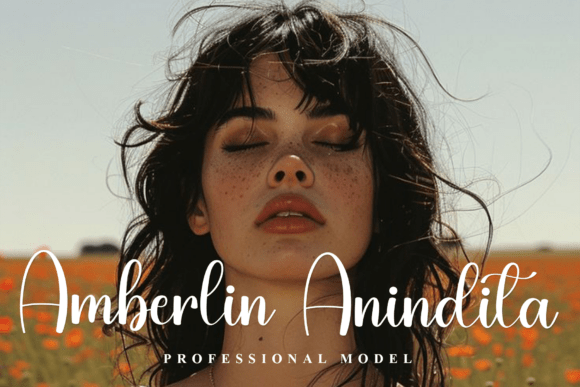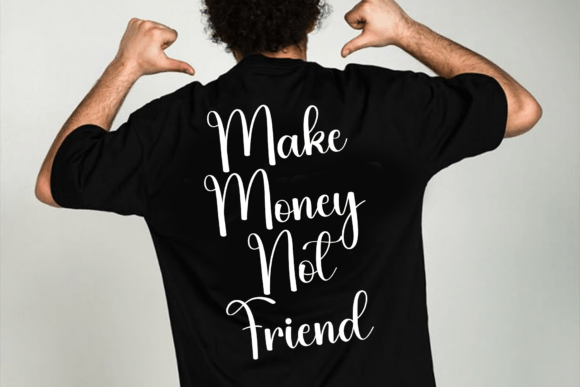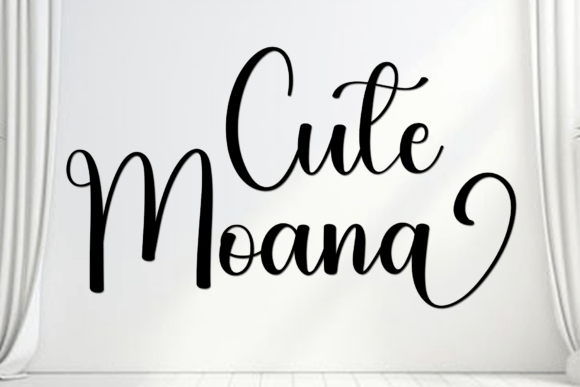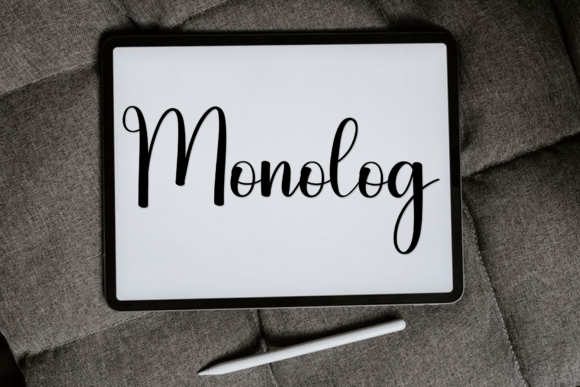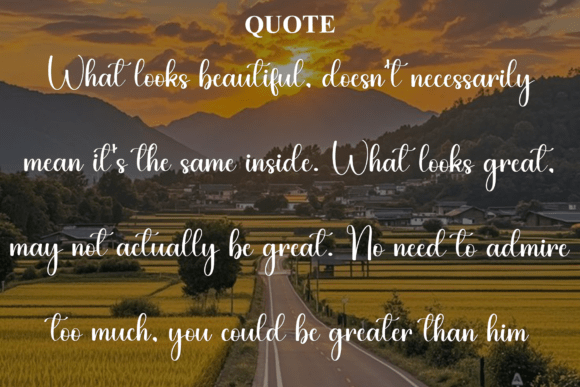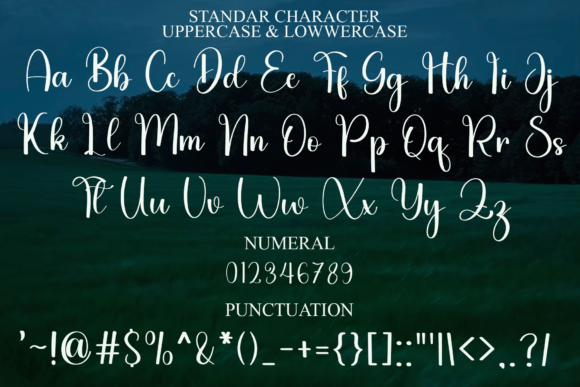
Bangela Font: The Ultimate Festive Typeface for Your Holiday Designs
As the holiday season approaches, designers and crafters are on the lookout for the perfect typography to add a touch of magic to their creations. Look no further than Bangela Font, a festive and merry typeface that captures the spirit of the holiday season. With its decorative elements and whimsical flair, Bangela Font is the perfect addition to your holiday-themed projects.
The Perfect Font for Holiday Designs
Bangela Font is specifically designed to bring a cheerful and nostalgic ambiance to your words. Its decorative elements and whimsical flair make it perfect for greeting cards, gift tags, and holiday-themed projects. Whether you’re a designer, crafter, or DIY enthusiast, Bangela Font is the perfect choice for adding a touch of enchantment to your creations.
What Makes Bangela Font Special?
Bangela Font is more than just a typeface – it’s an experience. With its PUA encoding, you can access all of the amazing glyphs and ligatures with ease. This means you can create stunning holiday designs without the hassle of complicated font management. The font is also highly versatile, making it perfect for a wide range of applications, from digital designs to print materials.
Key Features of Bangela Font
- Festive and Merry: Bangela Font is designed to capture the spirit of the holiday season, making it perfect for holiday-themed projects.
- Decorative Elements: The font features decorative elements and whimsical flair, adding a touch of enchantment to your designs.
- PUA Encoded: Bangela Font is PUA encoded, making it easy to access all of the amazing glyphs and ligatures.
- Highly Versatile: The font is perfect for a wide range of applications, from digital designs to print materials.
Using Bangela Font in Your Designs
- Experiment with Different Sizes and Colors: Bangela Font looks great in a variety of sizes and colors, so don’t be afraid to experiment and find the perfect look for your design.
Inspiration for Your Holiday Designs
Need some inspiration for your holiday designs? Here are a few ideas to get you started:
- Holiday Greeting Cards: Use Bangela Font to create stunning holiday greeting cards that are sure to impress your friends and family.
- Gift Tags: Add a touch of magic to your gifts with Bangela Font, perfect for gift tags and wrapping paper.
- Holiday-Themed Projects: From festive banners to holiday-themed social media graphics, Bangela Font is the perfect choice for any holiday-themed project.